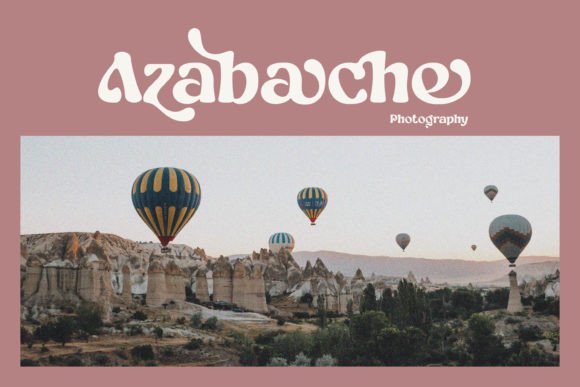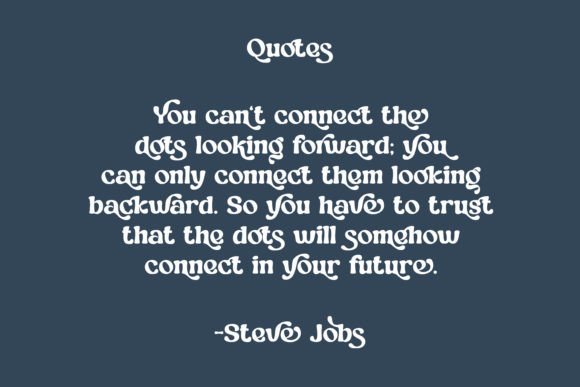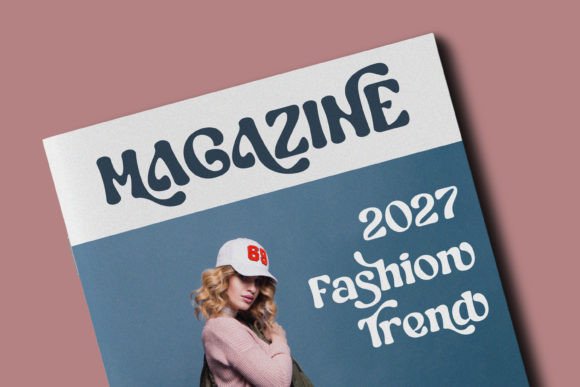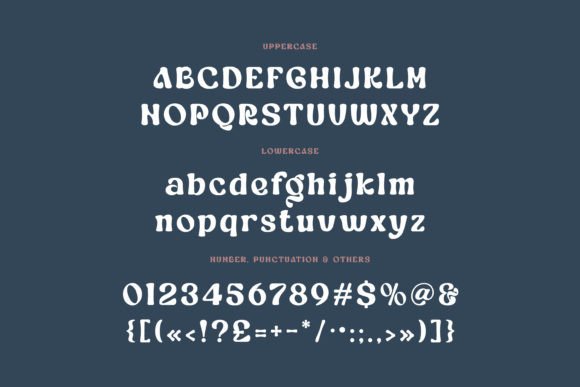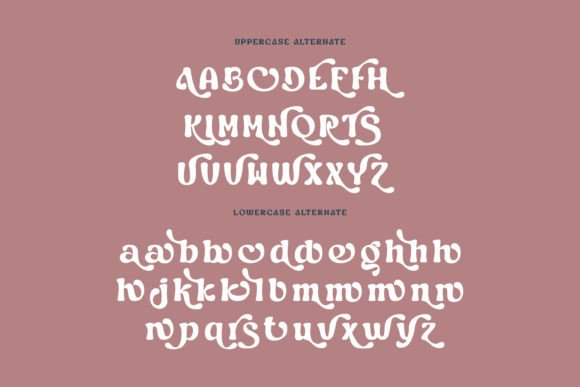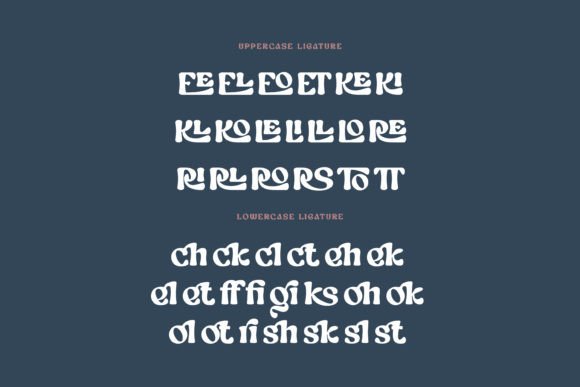
Introduction to Morgian Font
Morgian is a soft and feminine display font with delicate, flowing lines that exude grace and beauty.
The elegant curves and rounded serifs create a gentle, inviting feel, while the gentle stroke weight adds to its delicacy Morgian is perfect for romantic or vintage-inspired designs, such as wedding invitations, editorial layouts, or any project that requires a touch of feminine charm.